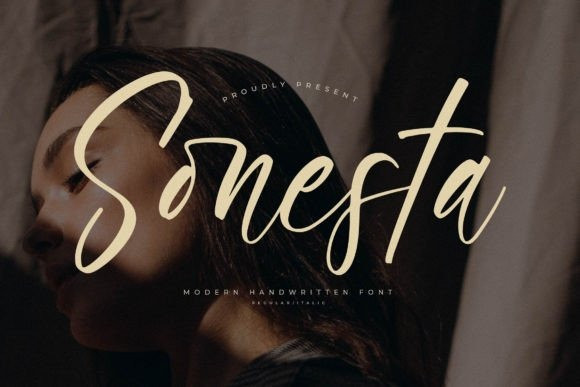
Sonesta Handwritten Font
Sonesta Handwritten Font is a romantic and sweet calligraphy typeface with characters that dance along the baseline. It will add a luxury spark to any design project that you wish to create!